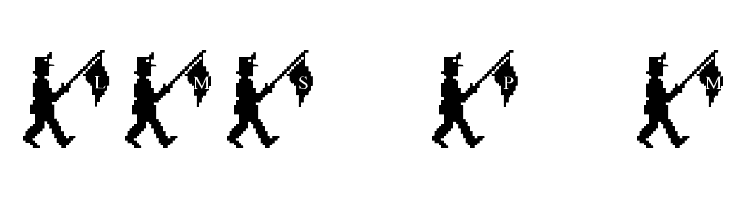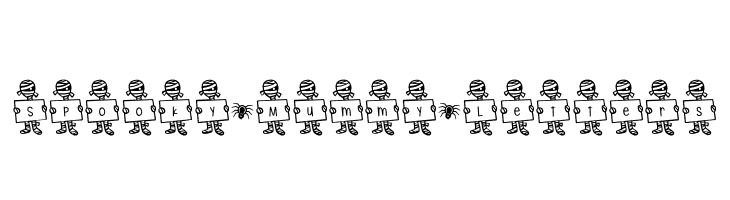
A playful font with characters encased in bear illustrations, offering a whimsical and unique style.
A whimsical, gingerbread-themed font perfect for festive projects.
A playful font with cheerleader graphics and bold, uppercase letters.
A novelty font featuring marching figure silhouettes.
A bold pictogram icon set of hands with various objects.
A playful, human-figure integrated font with a bold, dotted texture.
Bold, playful icons of speech bubbles and comic elements.
A pictographic font of hands and credit cards in transactional gestures.
A whimsical font with letters held by cartoon witches, perfect for magical themes.
A whimsical, mummy-themed decorative font perfect for Halloween projects.